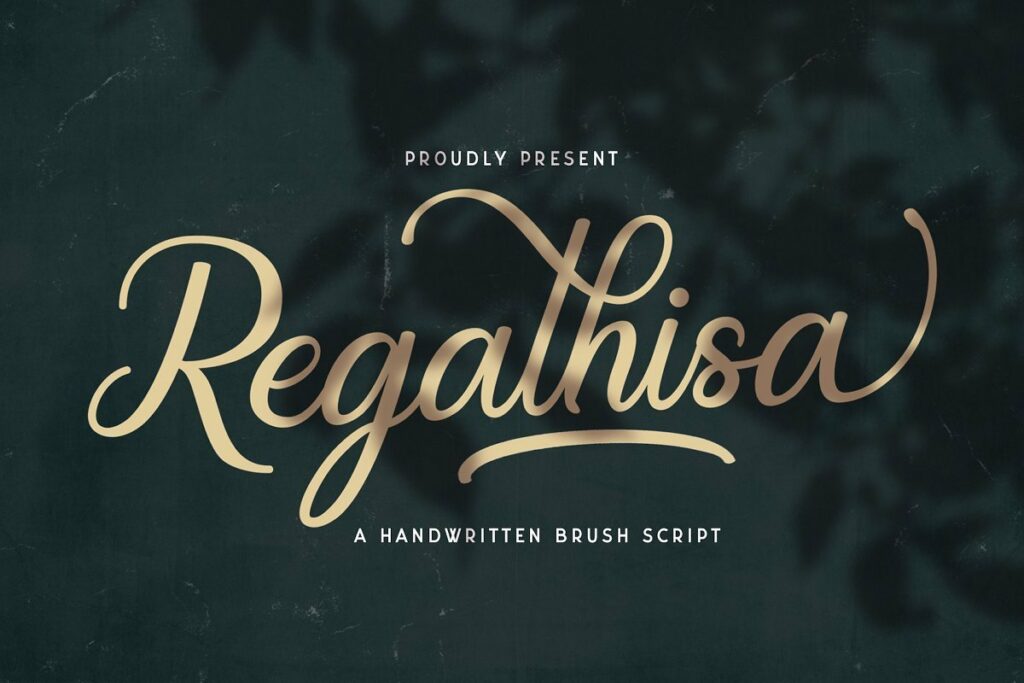
Regalhisa Calligraphy Script Font
Regalhisa Font is a beautiful combination of modern and classical calligraphy. Inspired by the handwriting of Italian women and ancient manuscripts. This font is very suitable for wedding, book covers, greeting cards, logos, branding, business cards and certificates, even for any design work that requires a classic, formal or luxurious.